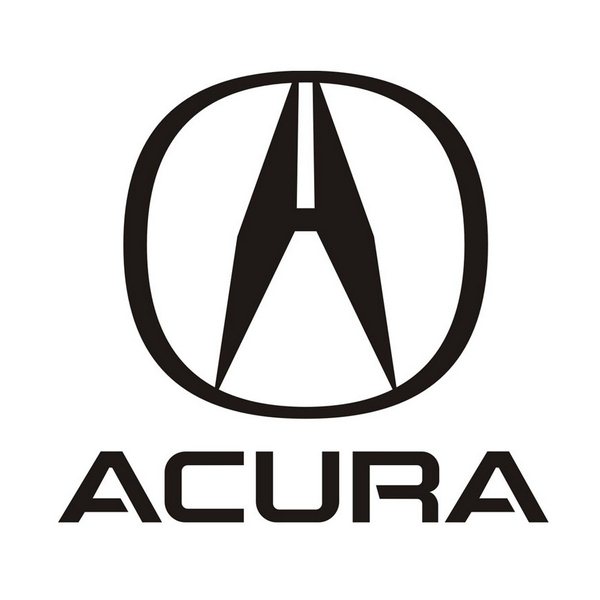
Acura Font
AutomobileAcura is a luxury and performance automobile brand owned by Japanese automaker Honda, based primarily in North America. The brand was launched on March 27, 1986, as its own entity to market high-end vehicles that can stand up against European brands.
The Acura logo is an oval around a stylized capital "A" with the word "ACURA" beneath it. It is possible to read the stylized letter A as the word "Honda," which is represented by a stylized H. The lettering of the Acura logo is remarkably similar to a Bill Pierce font named NSX or NSX 2.6. In NSX 2.6, lowercase a will let you create the logo's upper portion. You can download the font NSX 2.6 for free in the Fonts Used Section.